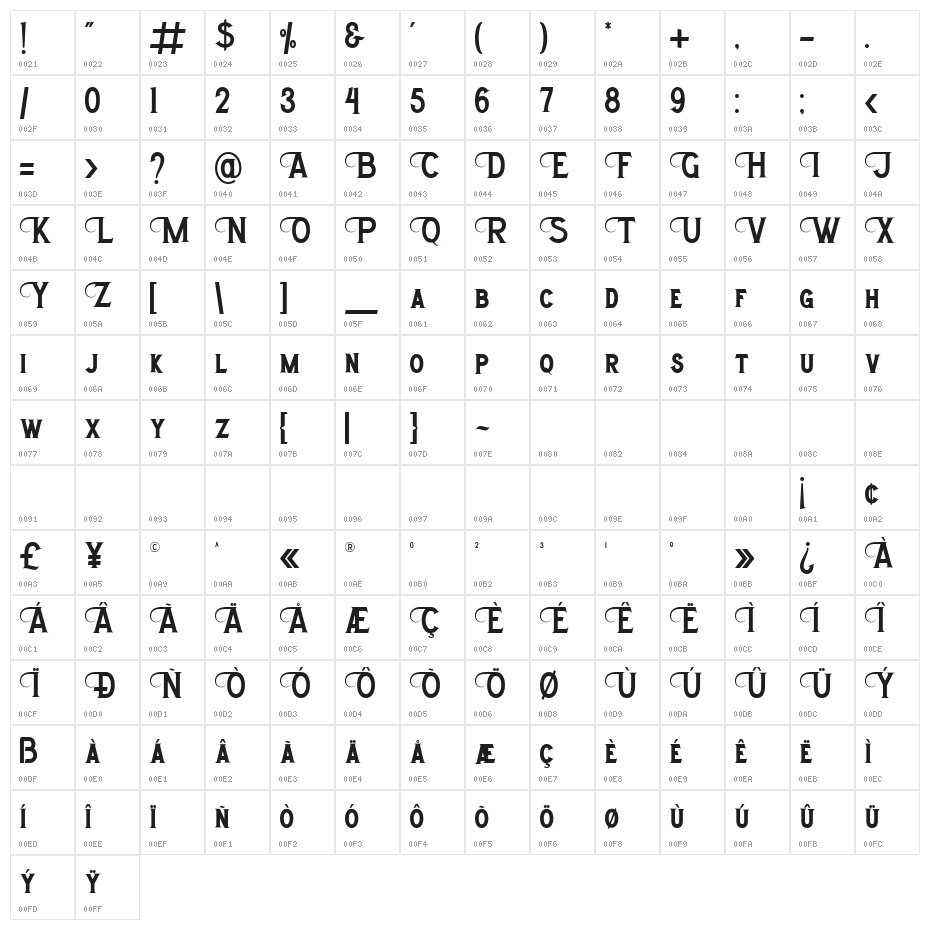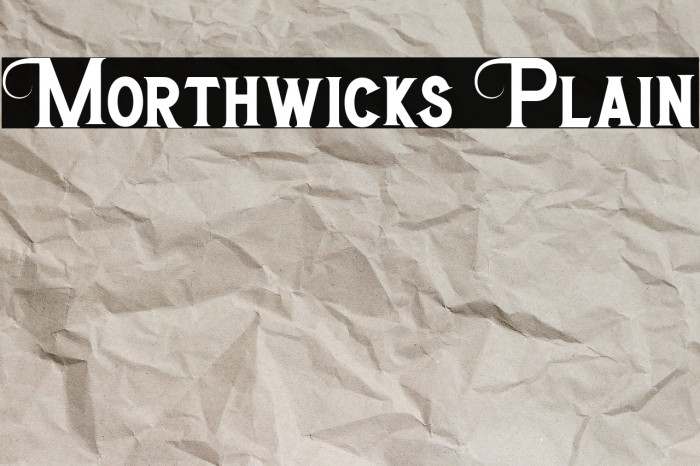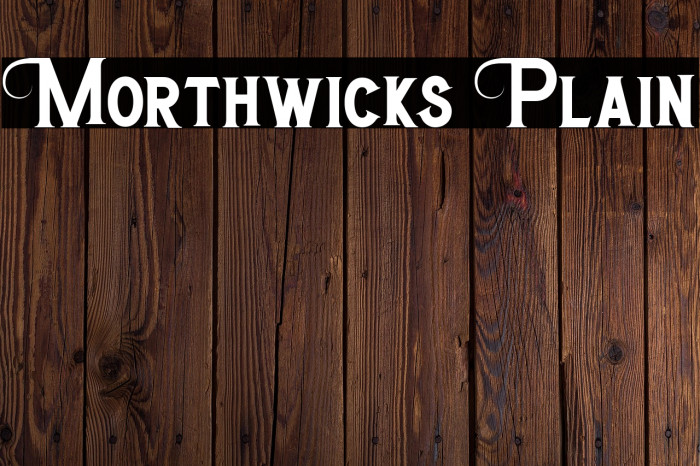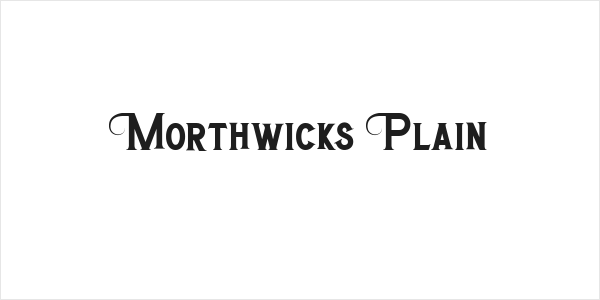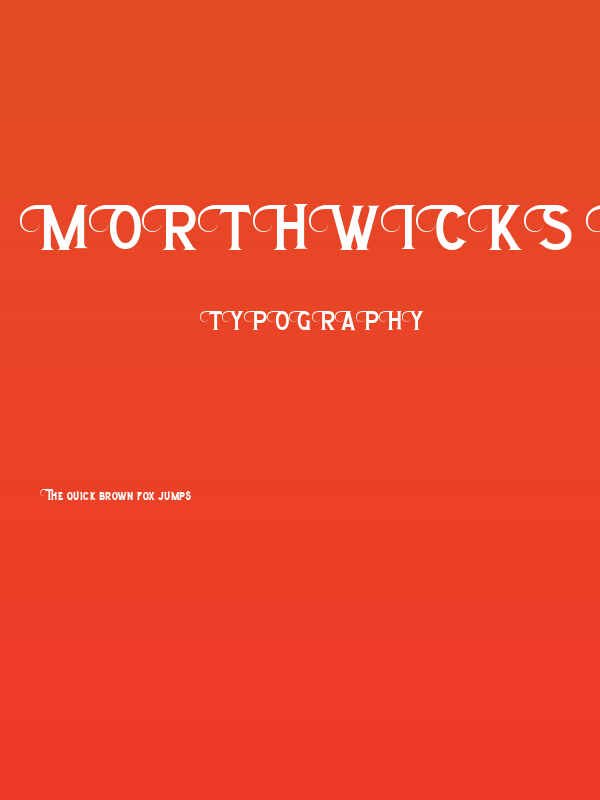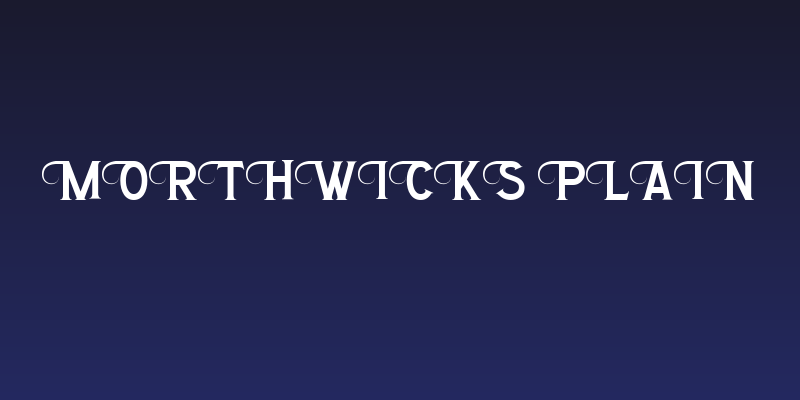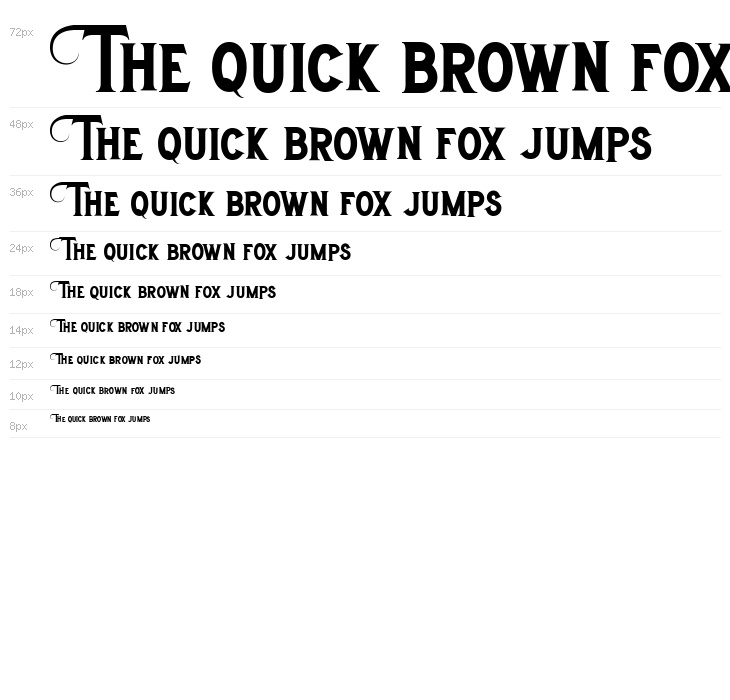
Morthwicks Plain Font
Morthwicks Plain Description
This font features a bold and decorative style with a distinct flair. The uppercase letters have a unique, ornamental quality, characterized by elegant curves and flourishes, particularly noticeable in letters like 'A', 'N', and 'Q'. The lowercase letters maintain a consistent boldness, with smooth, rounded edges that complement the uppercase set. Numbers are equally bold, with a slight vintage touch, making them stand out. Special characters are designed with the same decorative flair, ensuring a cohesive look across all glyphs. The overall appearance is both striking and sophisticated, suitable for making a statement in any design.
| Proposed Projects | Ideal for branding, posters, headlines, and any project requiring a bold, decorative touch. |